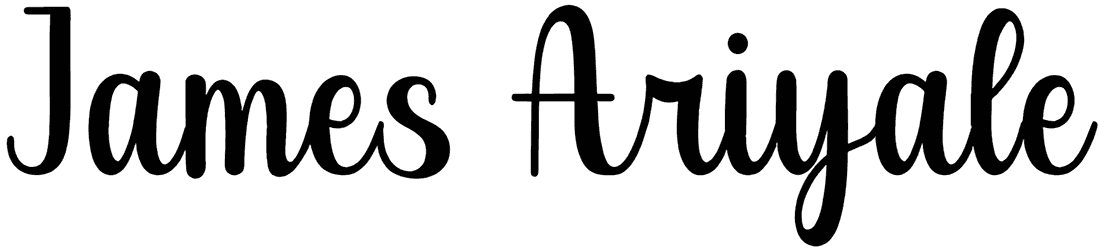
James Ariyale Font
James Ariyale font is an elegant script font with semi-bold and curved characters that look like they have been written to resemble a calligraphy style written with a ballpoint pen.
We usually see this kind of font in t-shirt designs and summer flyers, but you can also use it for advertisements, night shows, and personal blogs. The characters set as individuals are normal, but when put together in words, they will adopt a continuous style.